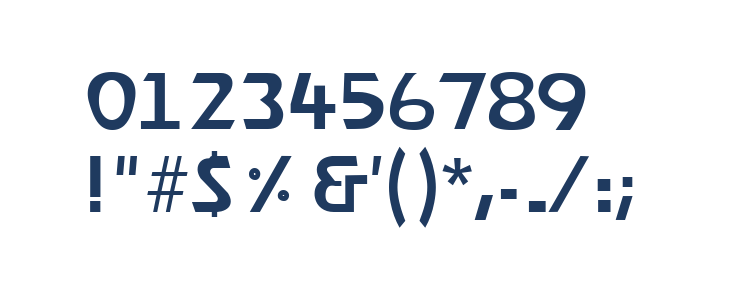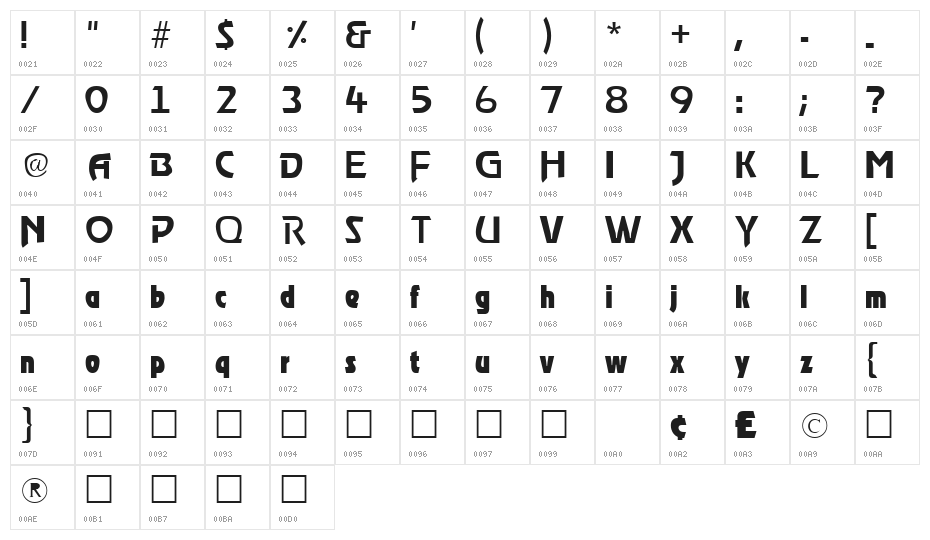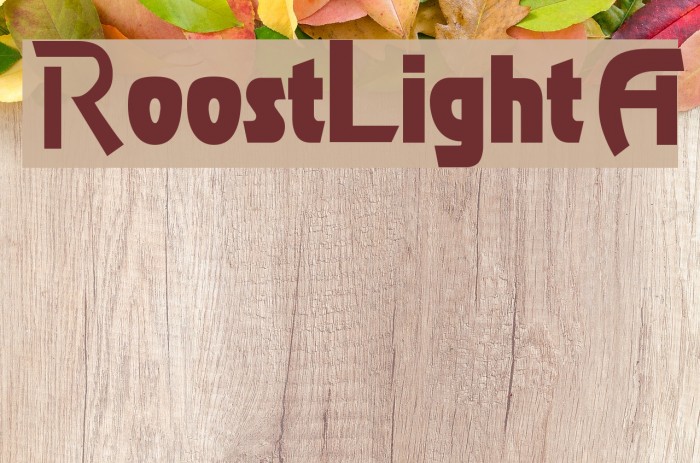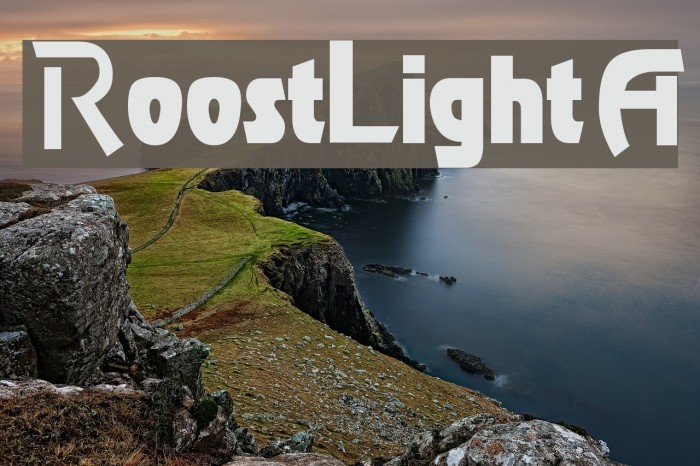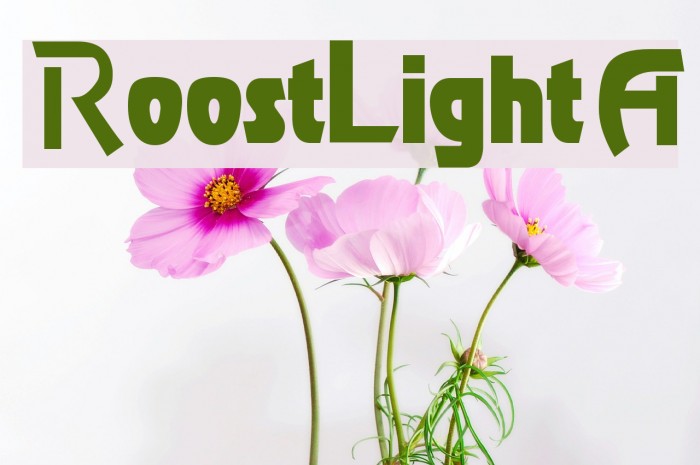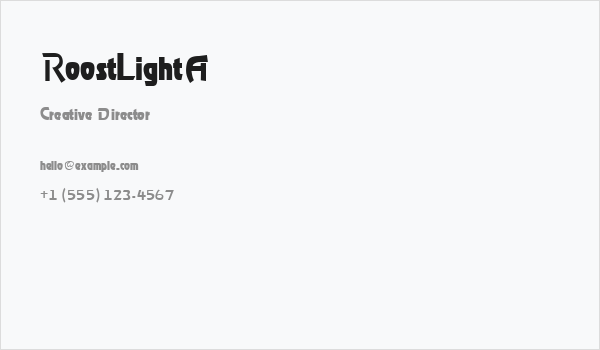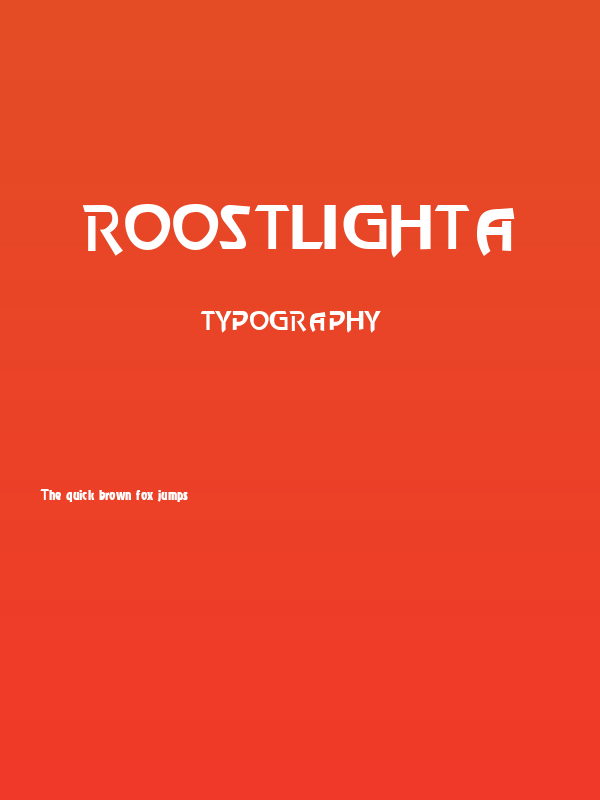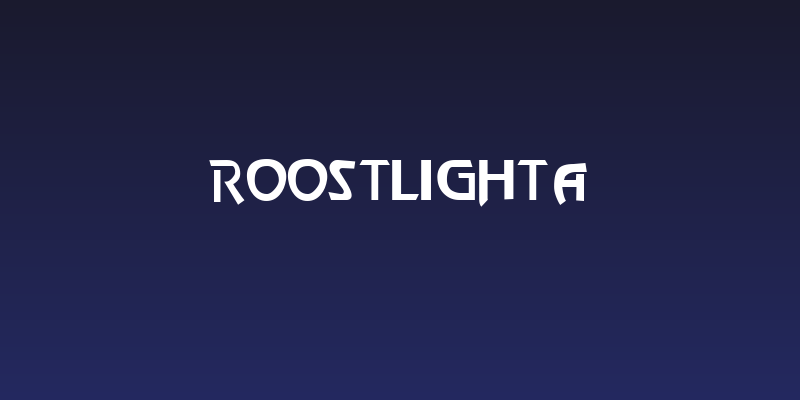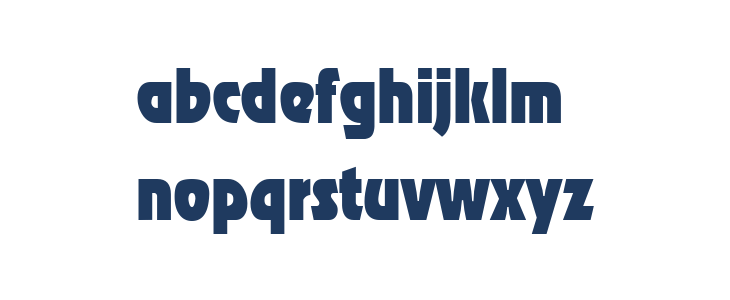
RoostLightA Font
RoostLightA Description
This font features a bold and geometric design with sharp angles and clean lines, creating a modern and assertive appearance. The uppercase letters are particularly striking, with unique cuts and edges that give them a futuristic feel. The lowercase letters maintain a consistent weight and style, complementing the uppercase with a slightly softer touch. Numbers and special characters follow the same design principles, ensuring uniformity across all glyphs. The overall aesthetic is both contemporary and versatile, making it suitable for a variety of design applications.